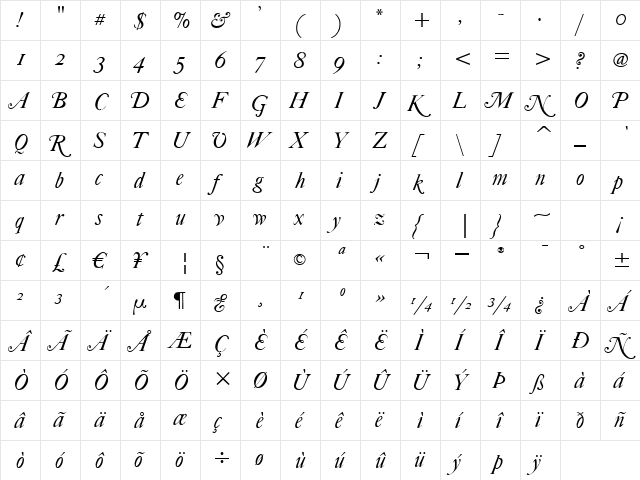
FCaslonFortyTwoAltsITC TT Italic
Italic · International Typeface Corporation Justin Howe ·
DesignerJustin Howe
Design Context for FCaslonFortyTwoAltsITC TT Typeface
FCaslonFortyTwoAltsITC TT takes a measured approach to typography — its balanced proportions and neutral character make it a reliable workhorse for both digital and print work. Its italic angle brings a sense of urgency and motion to the letterforms.
Pro Tip: Try FCaslonFortyTwoAltsITC TT for annotation and caption copy alongside an upright companion — the contrast in angle creates a dynamic but ordered typographic system.